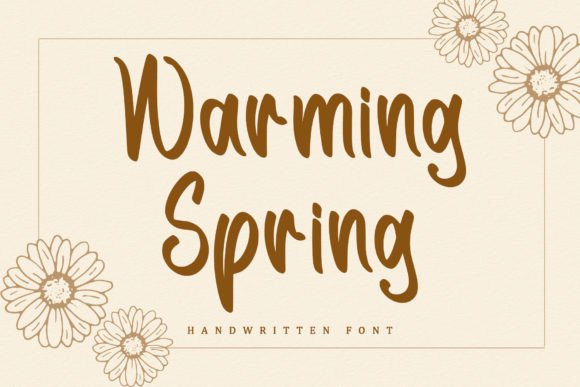
Prepare yourself to be swept away by the whimsical charm of Warming Spring Font, a captivating script font that will inject your designs with an infectious spirit of joy and cheerfulness. Each letter, meticulously crafted with a light and airy touch, exudes a graceful fluidity, as if dancing across the page.
Unleash your creativity with Warming Spring's playful nature, perfect for designs that demand a dash of whimsy and enchantment. Picture your invitations adorned with its playful strokes, your posters radiating infectious happiness, and children's books brought to life with its enchanting charm.
Immerse yourself in a world of boundless imagination with Warming Spring, the font that speaks to the heart with its cheerful disposition. Let your designs blossom with its playful spirit and let the world bask in the radiant warmth of your creations.
- Delightful Script Font: Warming Spring's script style oozes charm and playfulness, adding a touch of magic to your designs.
- Joyful Expression: Each letter exudes a sense of joy and cheerfulness, evoking positive emotions in your audience.
- Whimsical Appeal: Perfect for designs that require a touch of whimsy, such as invitations, posters, and children's books.
- Handcrafted Charm: The delicately crafted letters, with their light touch and spontaneous flow, add a personal touch to your designs.
- Versatility Unleashed: Warming Spring's adaptability knows no bounds, making it suitable for various projects, from personal stationery to marketing materials.
Embrace the enchanting spirit of Warming Spring Font and let your designs radiate joy, cheerfulness, and boundless creativity.